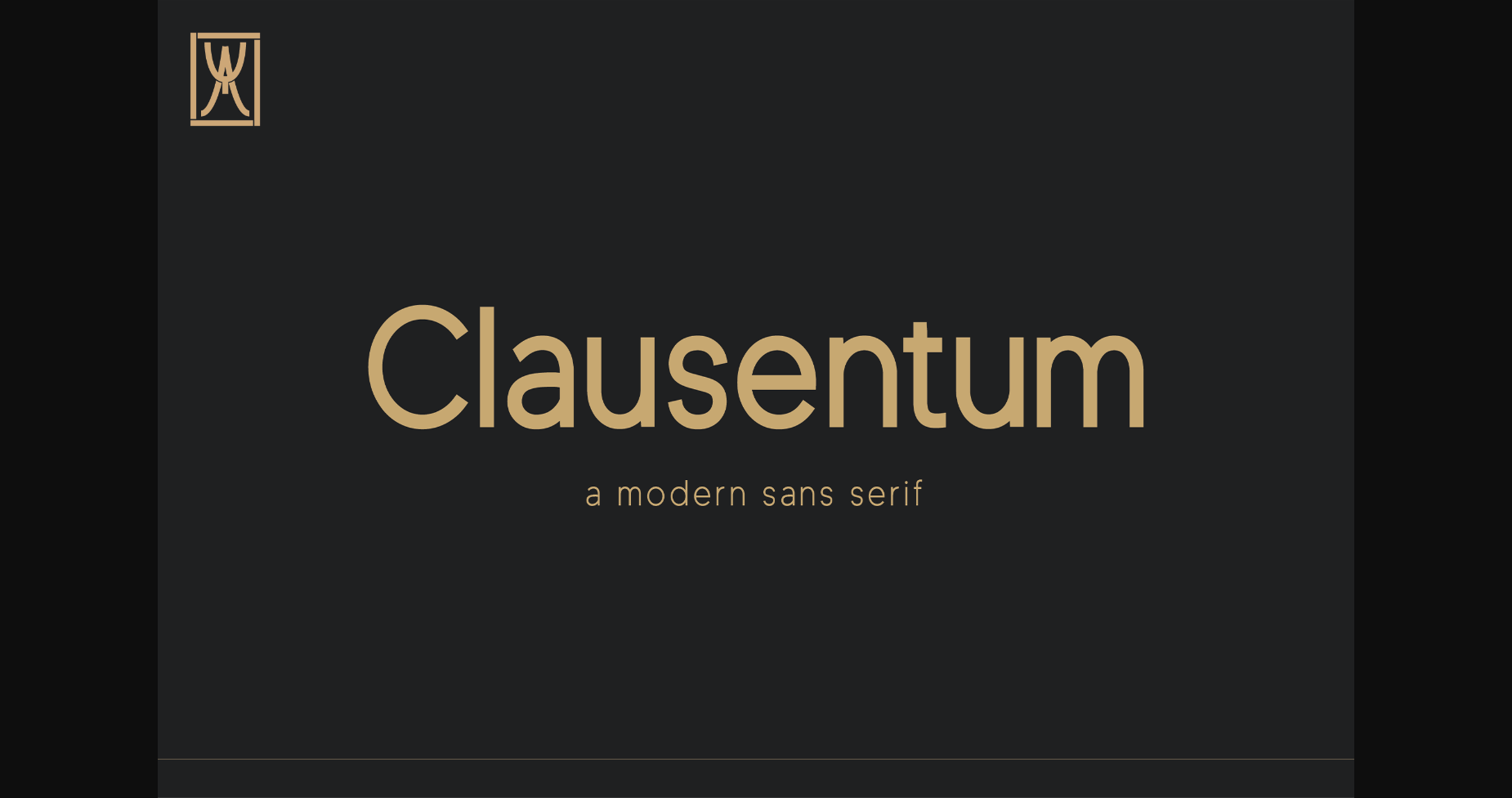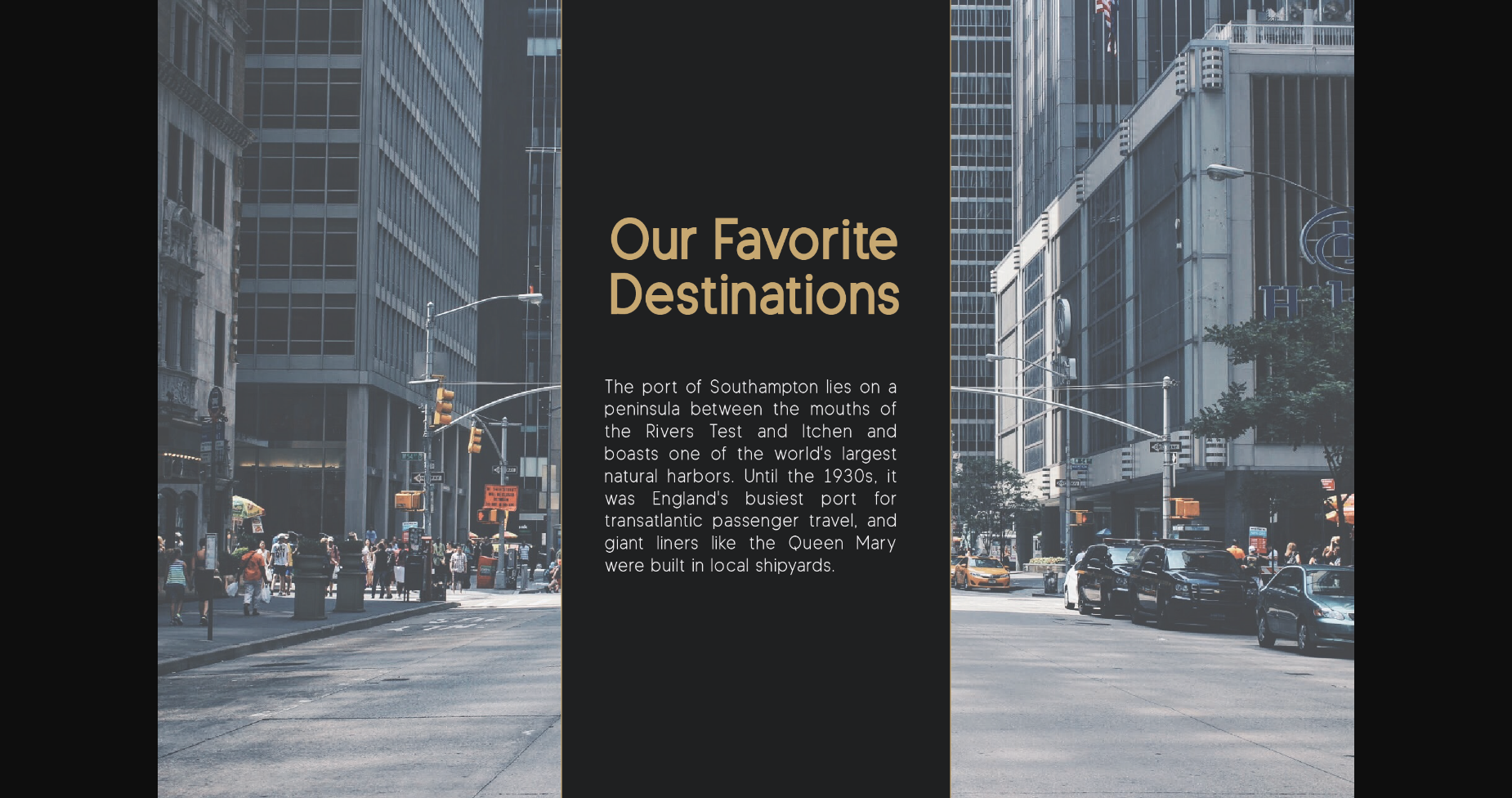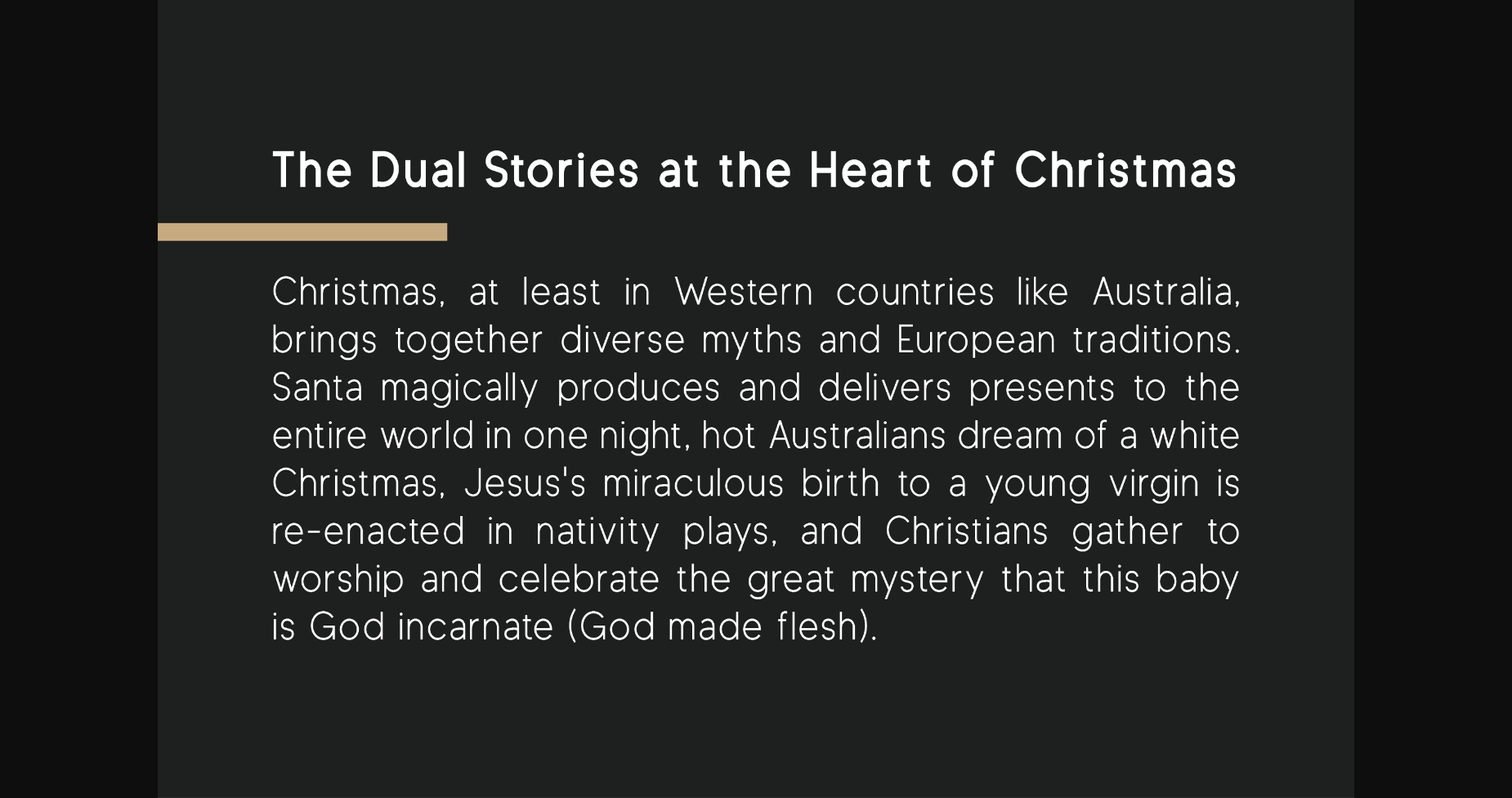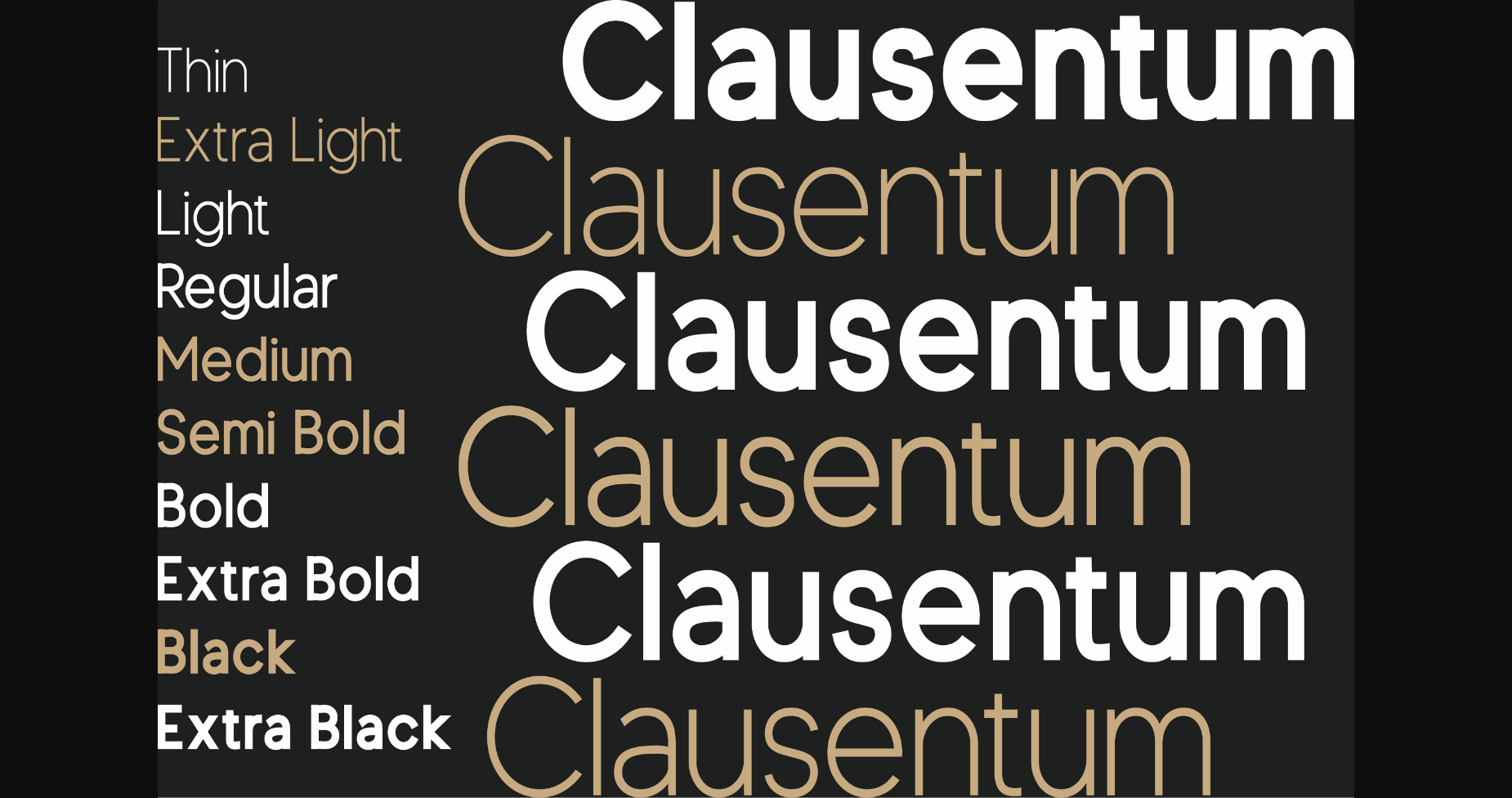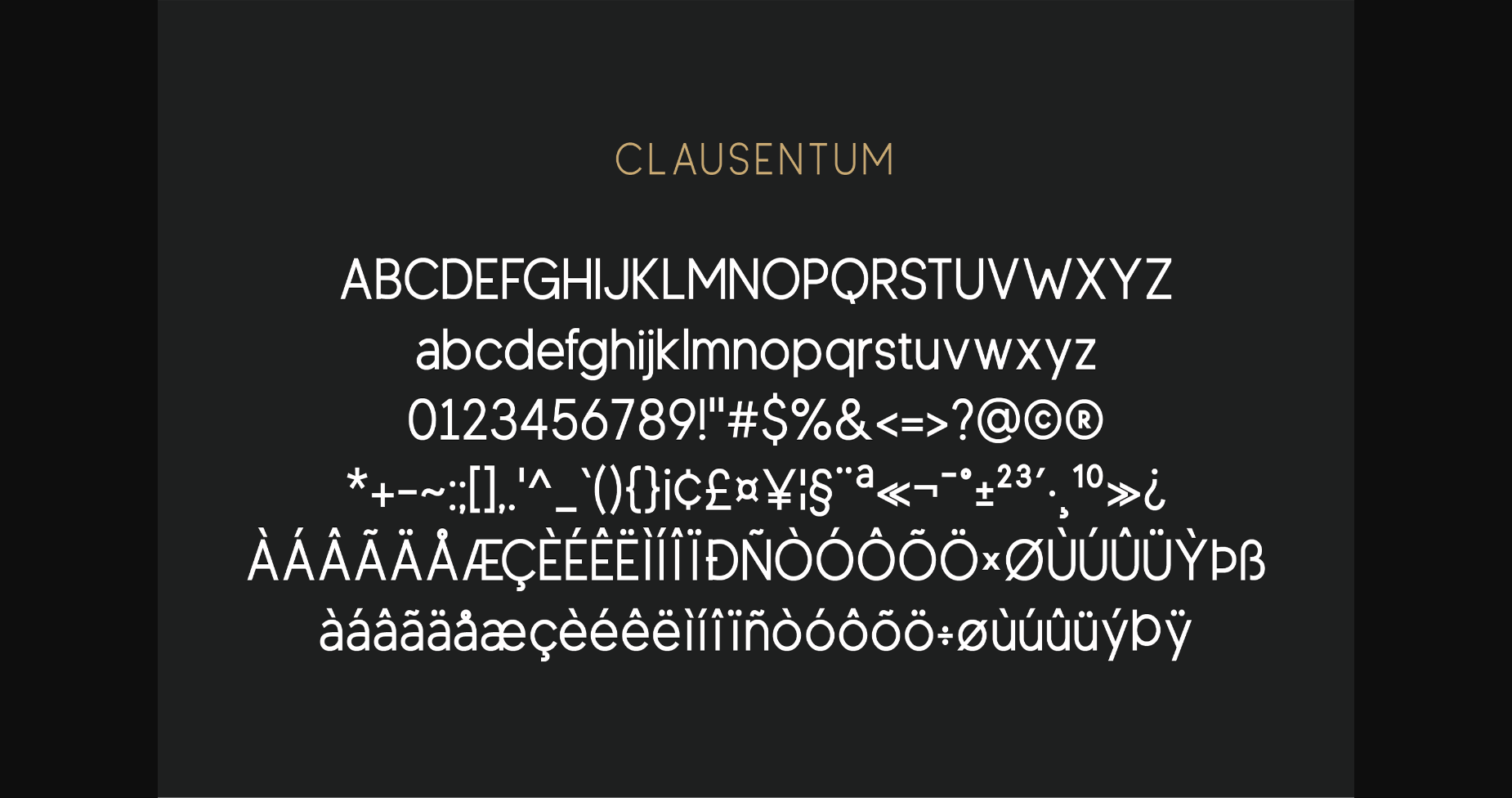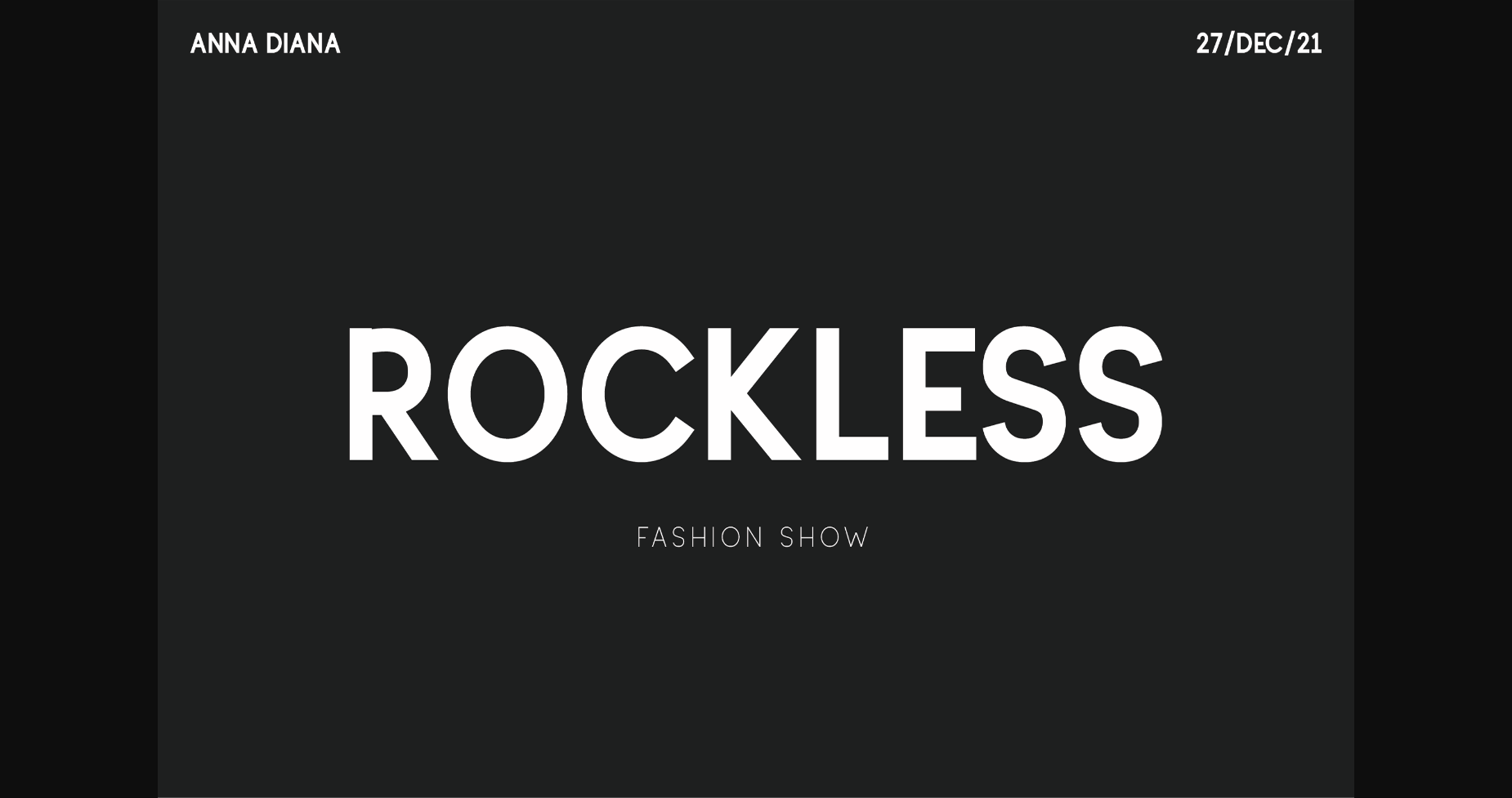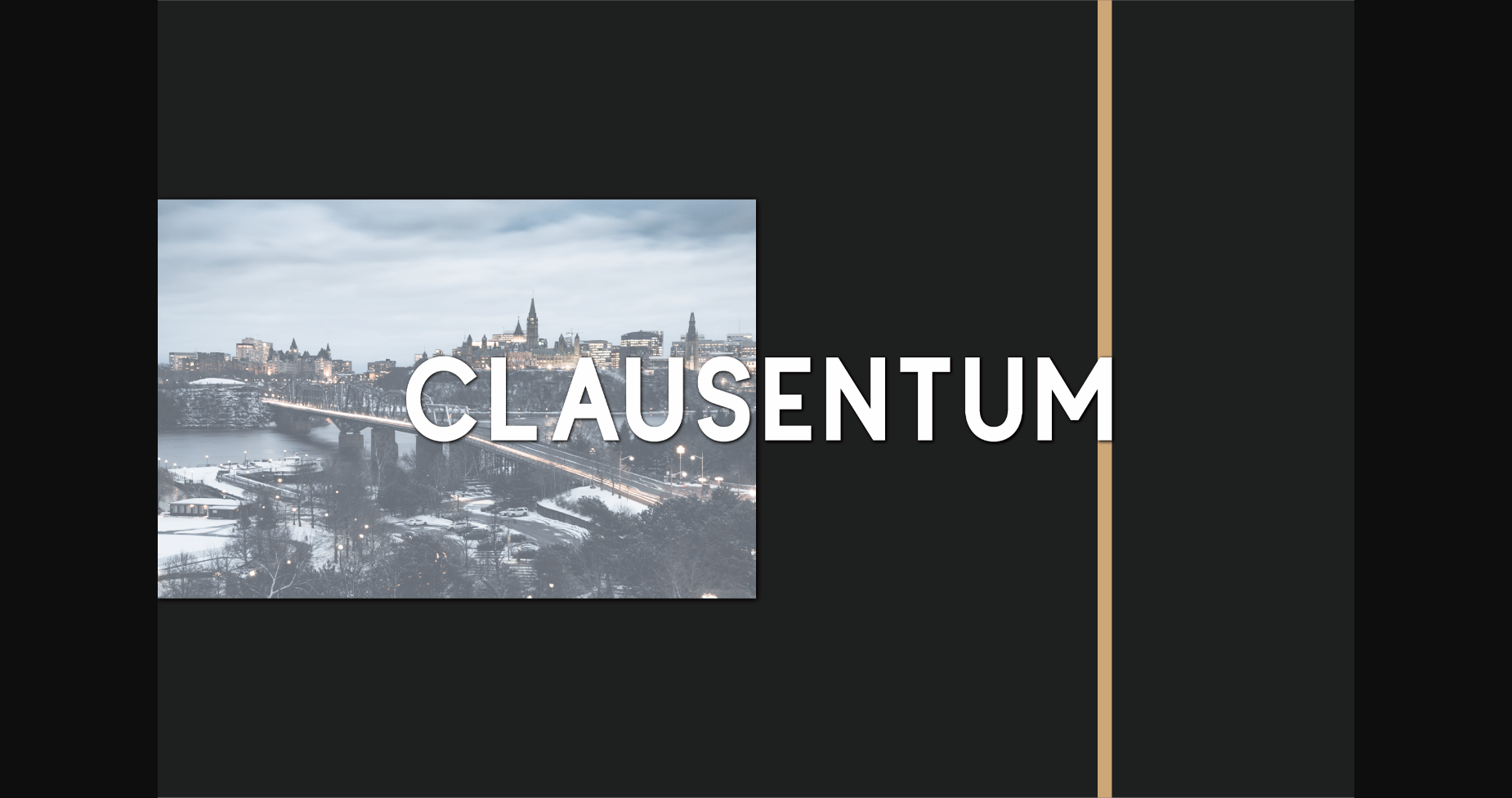
HomeSans Serif FontsClausentum Font Sans Serif Fonts Clausentum Font FacebookXPinterestWhatsApp 1 of 10 ... Clausentum Font Poster 2... Clausentum Font Poster 3... Clausentum Font Poster 4... Clausentum Font Poster 5... Clausentum Font Poster 6... Clausentum Font Poster 7... Clausentum Font Poster 8... Clausentum Font Poster 9... Clausentum Font Poster 10... About Clausentum Font Clausentum is a modern sans serif font. It is perfect for logos, weddings, invitations, quotes, advertisements, print, magazines, and more! DOWNLOAD NOW People also explored The Kubano Font Haunted Flowers Font Handley Font Sainthick Sadhira Script Font Rolf Font Bakpia Font FCK Trasher Font Coffee House Font 289 0 TagsClausentum Font Previous articleCabriole FontNext articleGuardilostra Font LEAVE A REPLY Cancel reply Comment: Please enter your comment! Name:* Please enter your name here Email:* You have entered an incorrect email address! Please enter your email address here Website: Save my name, email, and website in this browser for the next time I comment. Personal Use Free Time for Presents Personal Use Free Read more about this font Oito Personal Use Free Read more about this font The Kingdom Personal Use Free Read more about this font Crack Man Personal Use Free Read more about this font BLOG 5 Fonts That Will Dominate Design Trends in 2026 5 Fonts for 2026 That Will Dominate Design Trends Typography plays a critical role in visual communication, and as we look ahead to 2026, it’s... How to Cut Any Font on Cricut: Convert a Font to SVG (Free) Top 7 Google Fonts Alternatives for Faster and Privacy-Friendly Web Design (2025) Free vs Paid Fonts: Why Investing in Premium Fonts Is Worth It